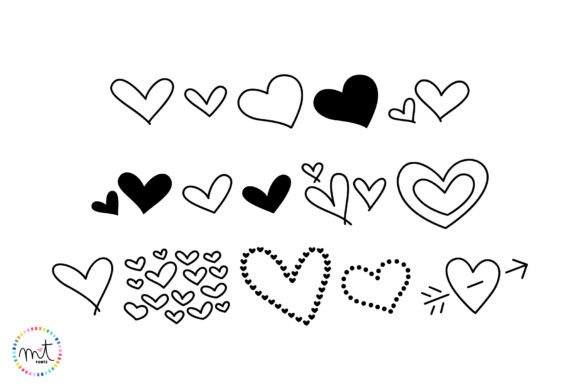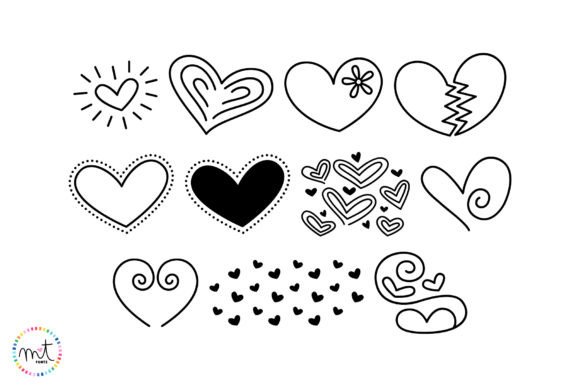
Introducing Heart Doodle Pro Font: The Ultimate Dingbat Font for Love-Related Projects
Are you a designer, crafter, or DIY enthusiast looking for a unique and playful font to make your Valentine’s Day, wedding, or love-related projects stand out? Look no further than Heart Doodle Pro Font! This adorable dingbat font is specifically designed to add a touch of romance and whimsy to your creative endeavors.
What is Heart Doodle Pro Font?
Heart Doodle Pro Font is a carefully crafted dingbat font that features an assortment of cute and quirky heart designs, perfect for expressing love and affection. With its playful and hand-drawn style, this font is sure to capture the hearts of your audience and leave a lasting impression.
Why Choose Heart Doodle Pro Font?
So, what makes Heart Doodle Pro Font the perfect choice for your love-related projects? Here are just a few reasons why designers and crafters alike are falling in love with this font:
• Unique and Playful Design: Heart Doodle Pro Font boasts a distinctive and charming design that will set your projects apart from the rest.
• Versatile: Heart Doodle Pro Font can be used for a wide range of projects, from Valentine’s Day cards and wedding invitations to scrapbooking and DIY crafts.
• Scalable: This font is highly scalable, ensuring that it looks great in any size or format.
Perfect for Valentine’s Day and Wedding Projects
Valentine’s Day and weddings are just around the corner, and Heart Doodle Pro Font is the perfect addition to your design toolkit. Use this font to create:
• Romantic Valentine’s Day cards and gifts
• Beautiful wedding invitations and stationery
• Charming wedding decorations and signage
• Adorable Valentine’s Day-themed crafts and DIY projects
Tips and Ideas for Using Heart Doodle Pro Font
Here are a few tips and ideas to get you started with Heart Doodle Pro Font:
• Mix and Match: Combine Heart Doodle Pro Font with other fonts and design elements to create a unique and eye-catching look.
• Experiment with Colors: Try pairing the font with different colors and textures to add depth and interest to your designs.
• Get Creative: Use Heart Doodle Pro Font to create custom illustrations, patterns, and designs that showcase your personality and style.
Font Name Heart Doodle Pro Font
Author Miss Tiina
In conclusion, Heart Doodle Pro Font is the perfect dingbat font for anyone looking to add a touch of romance and whimsy to their love-related projects. With its unique and playful design, ease of use, and versatility, this font is sure to become a favorite in your design toolkit. So why wait? Download Heart Doodle Pro Font today and start creating your own adorable and memorable projects!